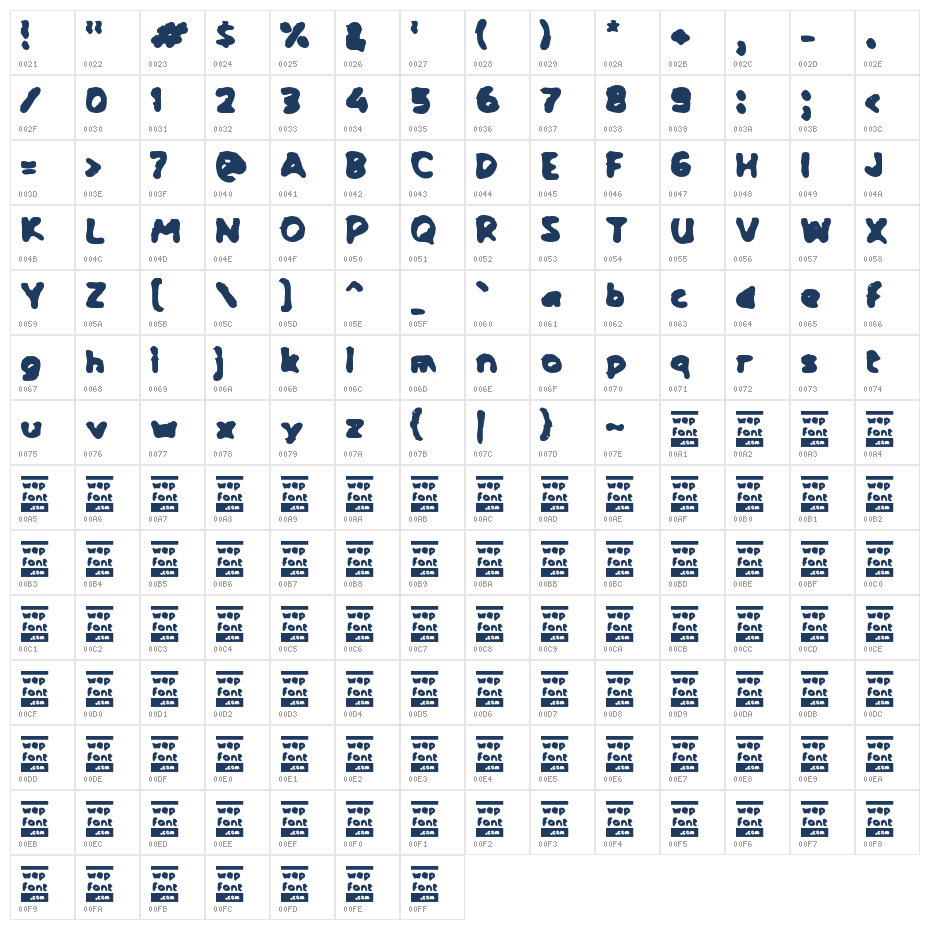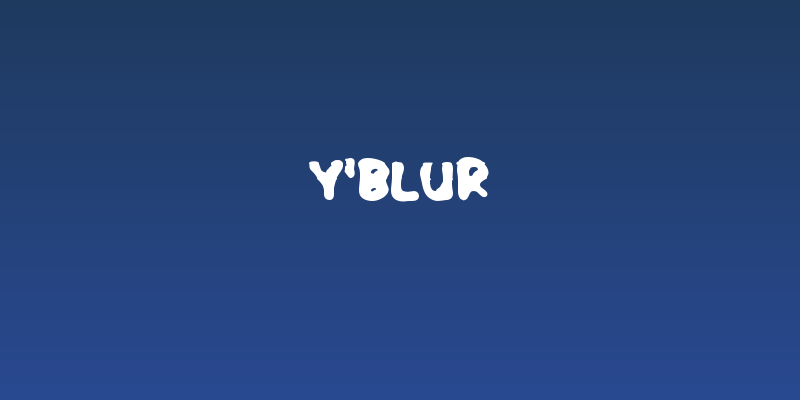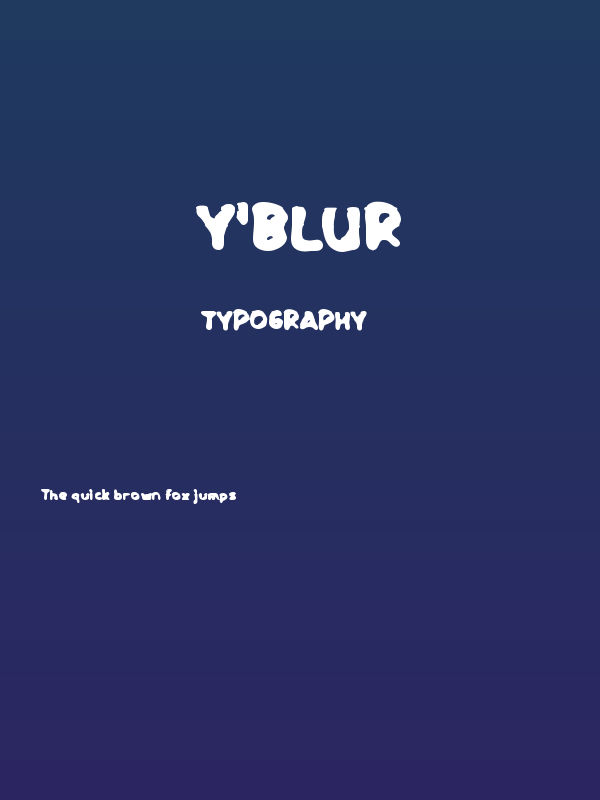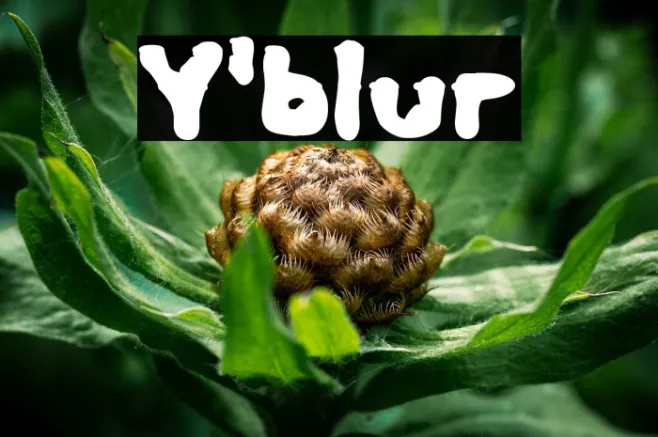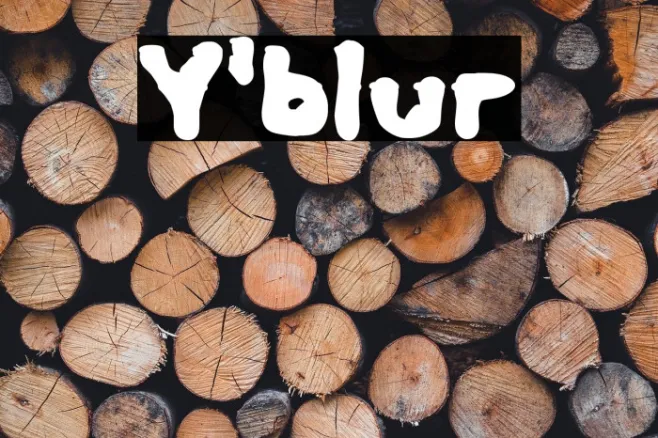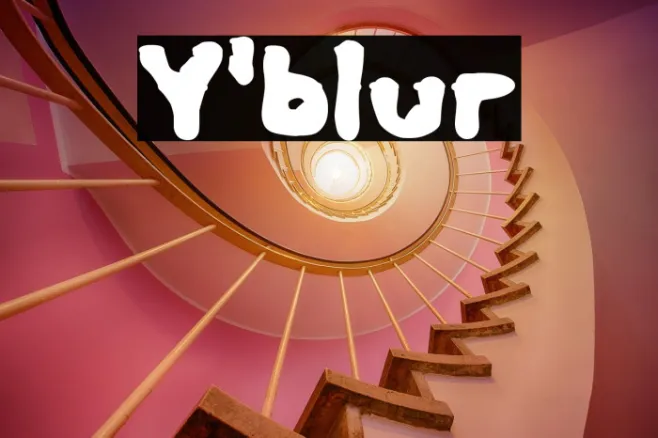
Y'blur Font
Y'blur Description
A bold, playful, and irregularly shaped display font with a hand-drawn, chunky appearance.
| Overall Style | Playful, Hand-drawn, Casual |
| Use Case | Headlines, Posters, Logos, Children's products |